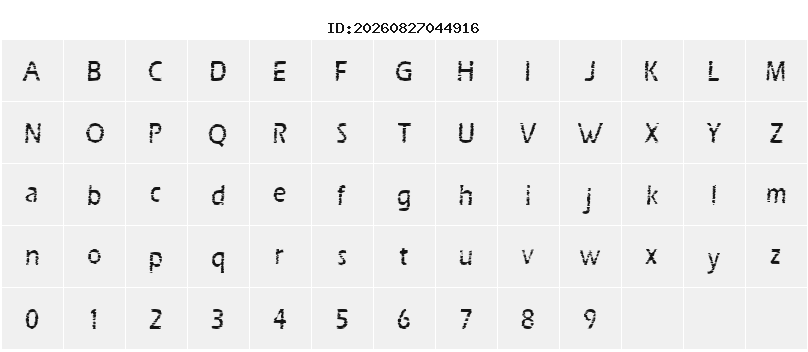
648-CAI978 Preview
• Font Name: 648-CAI978
• Full Font Name: 648-CAI978
About 648-CAI978.ttf
648-CAI978.ttf is a modern, elegant sans-serif font designed for ultimate readability and visual harmony. Perfect for branding, headlines, web design, and print materials.